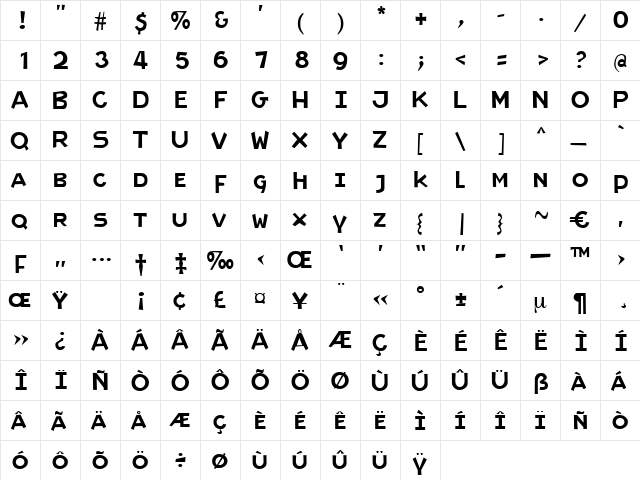
Raveline Regular
Design Context for Raveline Typeface
Raveline takes a measured approach to typography — its balanced proportions and neutral character make it a reliable workhorse for both digital and print work.